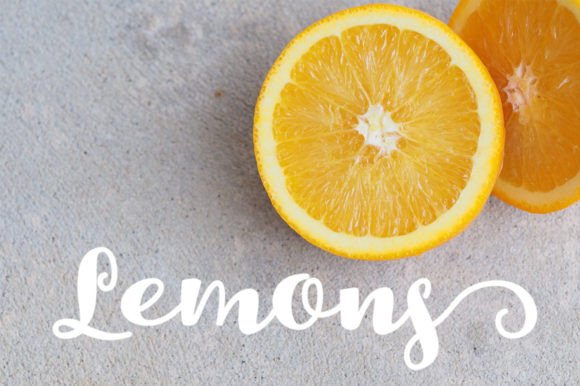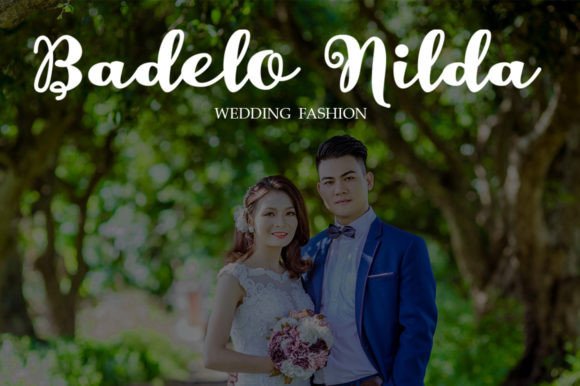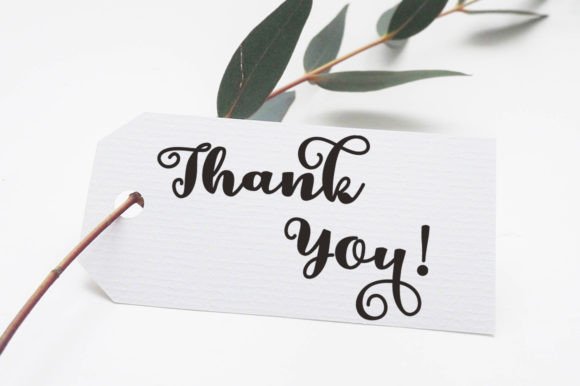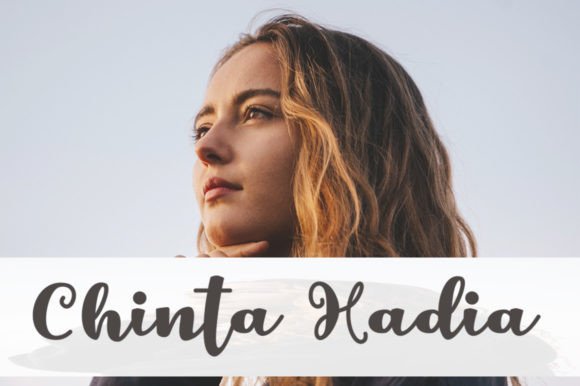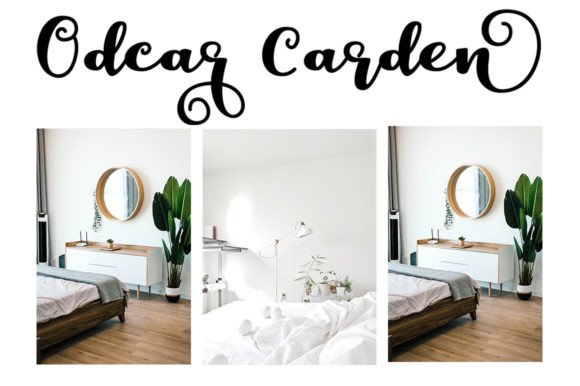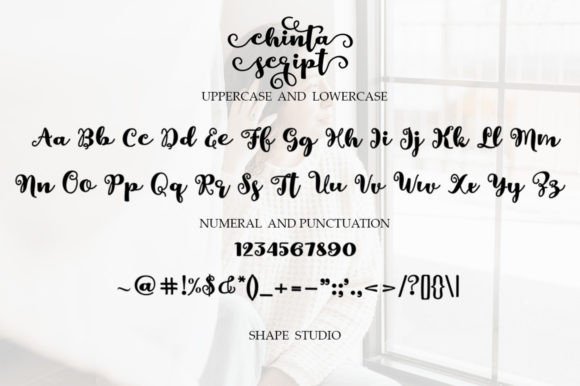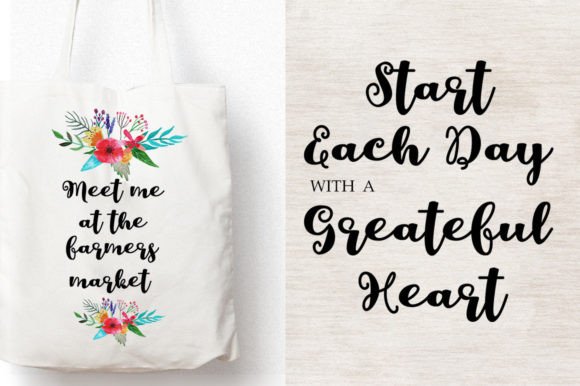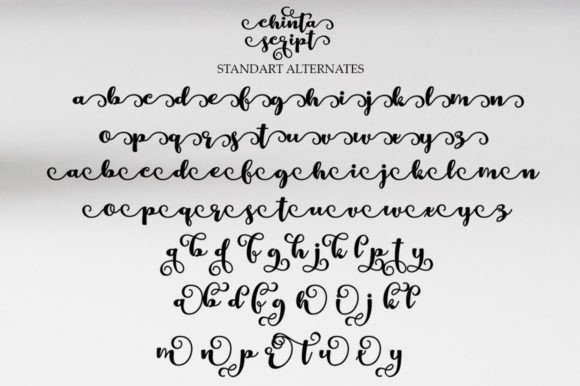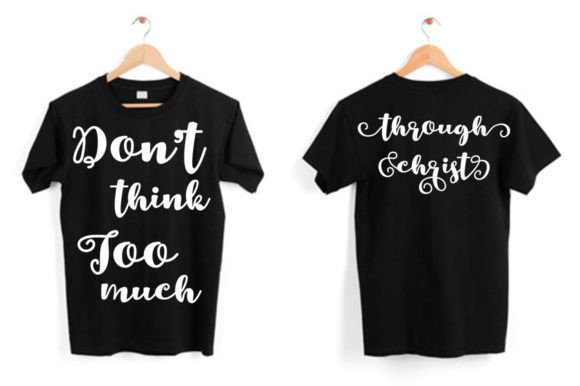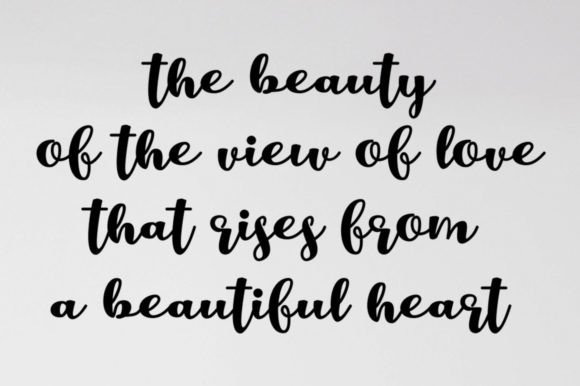
Chinta Font
About Chinta Font
“Chinta” exudes a delightful blend of charm and elegance. This captivating font is a stunning choice for a wide range of creative projects, including wedding invitations, thank-you cards, quotes, greeting cards, logos, business cards, and any design in need of a handwritten touch. The PUA encoding of “Chinta” ensures effortless access to all the glyphs and swashes, providing you with endless creative possibilities.
“Chinta” transcends conventional typography; it’s a design asset that effortlessly captures the essence of sophistication and charm. Its meticulously crafted characters radiate grace, making it an invaluable addition to your design toolkit for crafting projects that exude beauty and elegance.
One of the standout qualities of “Chinta” is its versatility. Whether you’re designing a romantic wedding invitation, creating a heartfelt thank-you card, or elevating your brand’s logo, this font seamlessly integrates into diverse design contexts, enhancing each project with its distinctive allure.
The font’s appeal extends effortlessly from traditional print media to the digital landscape. Whether gracing the pages of a beautifully designed wedding invitation or enhancing the online presence of a sophisticated logo, “Chinta” adds a touch of charm and elegance to every setting. Its impeccable readability ensures that your message is conveyed with clarity and style, while its inherent beauty adds an extra layer of visual allure.
What truly sets “Chinta” apart is its ability to infuse your designs with a sense of charm and sophistication. It’s a font that invites your audience to engage with your creative ideas on an aesthetic and emotional level. With “Chinta” as part of your creative toolkit, you can convey your message in a way that resonates with individuals who appreciate beauty and elegance.
Furthermore, “Chinta” offers a wide array of customization options, allowing you to tailor your text to perfectly match your creative vision. This flexibility empowers you to create designs that are as unique as your artistic imagination.
In conclusion, “Chinta” is not just a font; it’s a design asset that elevates your creative projects with charm, elegance, and a touch of sophistication. Embrace its handwritten style, and let it inspire you to craft stunning and elegant designs that leave a lasting impression. With “Chinta” by your side, your creative possibilities are boundless, enabling you to create works of art that are as charming and elegant as they are versatile and captivating.